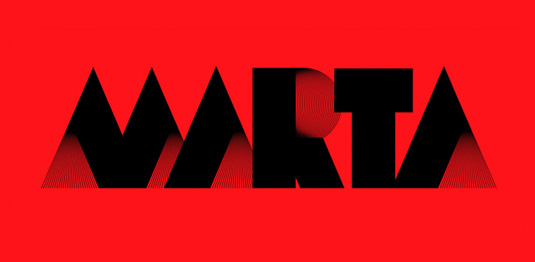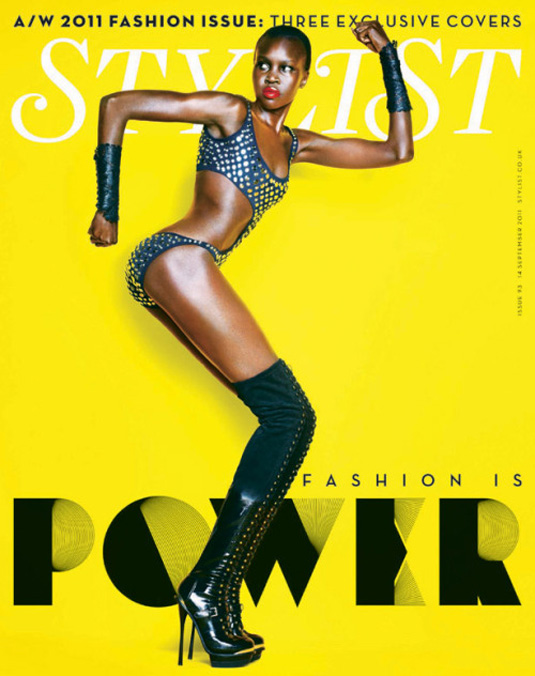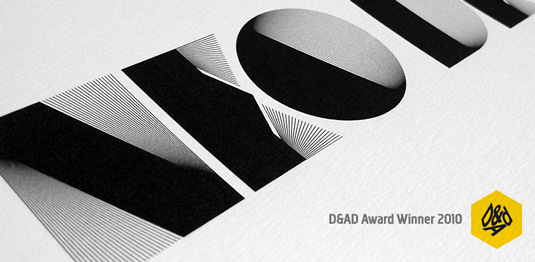
Font of the day: Neo Deco
Every day we showcase the best fonts on the web. Today it's Neo Deco by Alex Trochut.
Neo Deco by Alex Trochut
This bold, Art Deco-inspired design was created by renowned designer and illustrator Alex Trochut. A contemporary font with a strong presence, Neo Deco bagged a D&AD award back in 2010 and featured on the front cover of Stylist magazine in 2011. An enticing and innovating design, Neo Deco includes a number of alternative and cool characters.